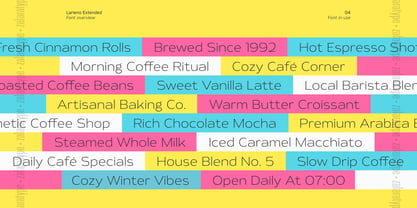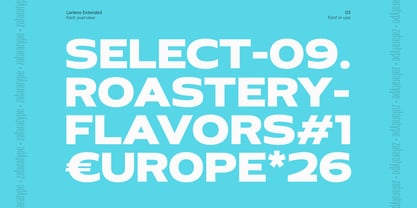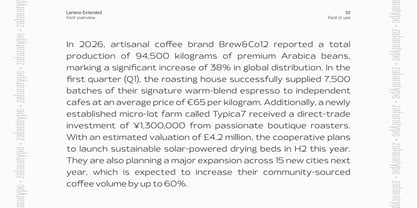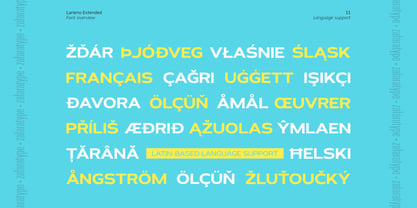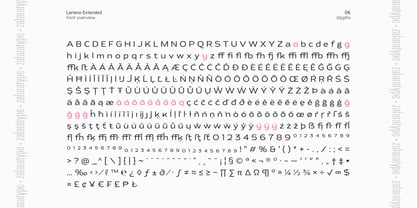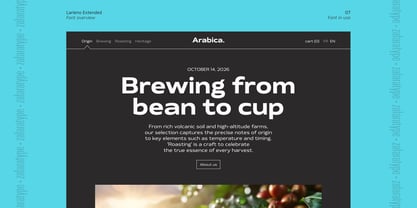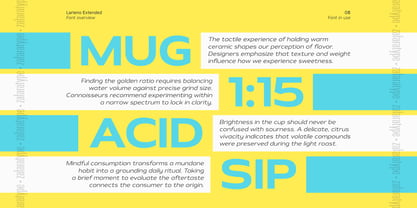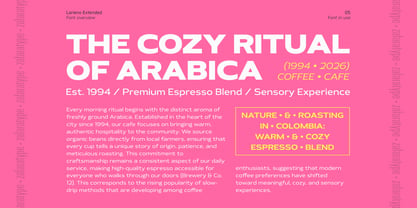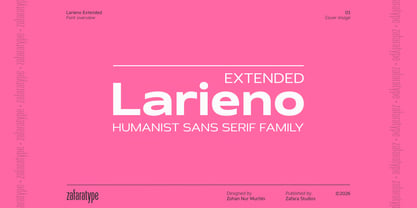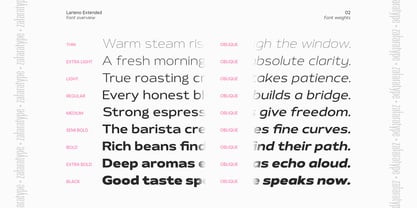
Larieno
Larieno Extended is a humanist sans serif designed to combine warmth, clarity, and modern versatility. With its wider proportions and balanced construction, it creates an open, confident look while remaining highly readable across a wide range of design applications.
The extended width gives Larieno a distinctive personality. It feels spacious without becoming overwhelming, making it an excellent choice for branding, editorial design, packaging, advertising, websites, user interfaces, and presentation design. Whether used for bold headlines or supporting typography, it brings a clean, approachable voice that feels both contemporary and timeless.
The family includes 18 styles, featuring 9 upright and 9 oblique styles from Thin to Black. This broad range allows you to build flexible typographic hierarchies, pairing delicate weights with strong, impactful styles while maintaining a consistent look throughout the family.
Every weight has been carefully refined to preserve the same humanist character, resulting in smooth transitions and balanced proportions across the entire family. The oblique styles add just enough movement and emphasis without sacrificing the clean appearance that defines Larieno.
Larieno is built as a growing superfamily, with Condensed, Normal, and Extended widths available, making it easy to create more dynamic and adaptable design systems while keeping a unified visual identity.
Featuring 512 glyphs and extensive Latin-based language support, Larieno Extended is ready for multilingual projects and everyday professional use. From visual identities and editorial layouts to digital products and marketing materials, it offers the flexibility to handle both expressive display typography and clear, functional text.
Friendly yet confident, modern yet familiar, Larieno Extended is designed to be a dependable typeface that brings warmth, personality, and clarity to contemporary design.